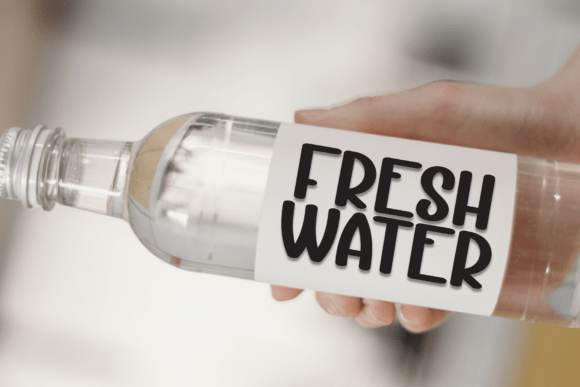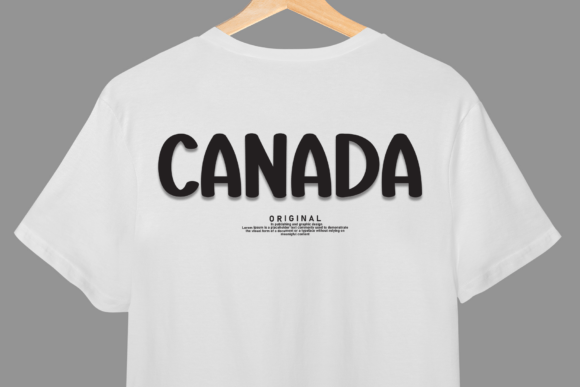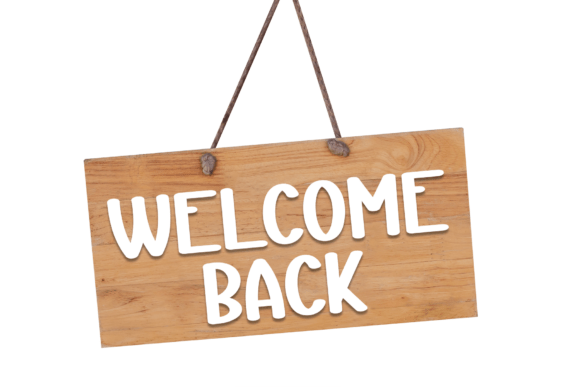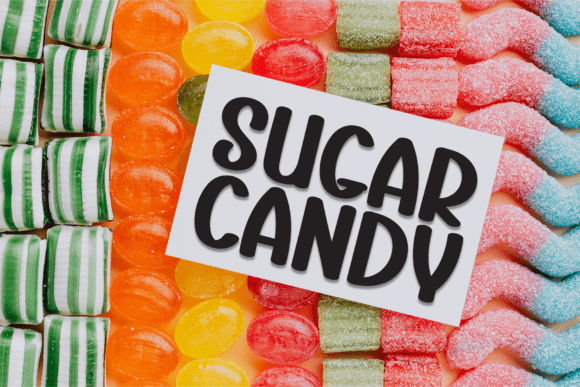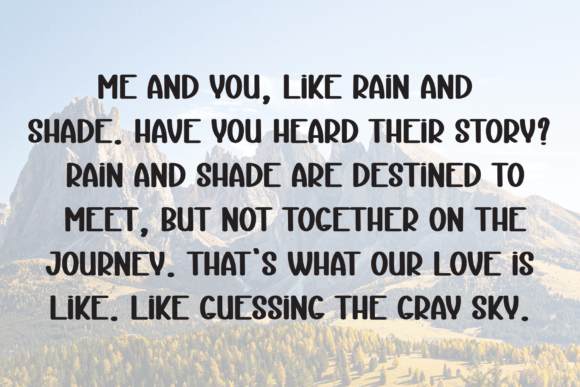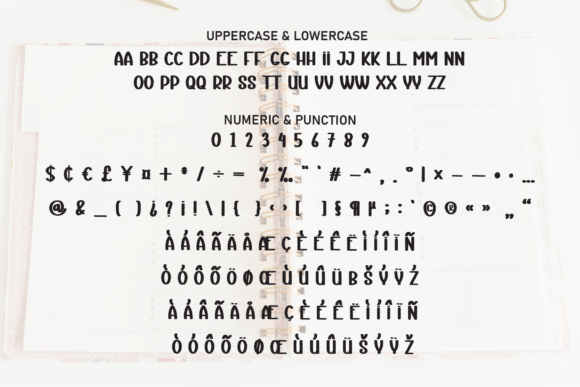
Introduction to Modern Planner Font
As designers, we’ve all had those moments of pure creative bliss – staring at a blank page, waiting for the perfect idea to strike. For me, it was the day I stumbled upon the Modern Planner Font. Its whimsical charm and playful personality immediately caught my eye, and I knew I had to learn more. This delightful handwritten display font is the perfect addition to any design, adding a touch of joy and whimsy that’s sure to delight.
Whether you’re working on a creative project, crafting wedding invitations, or simply looking for a design resource that’s a little out of the ordinary, the Modern Planner Font is a high-quality choice that’s sure to impress. With its transparent background and free download option, it’s a valuable resource for designers of all levels. In this article, we’ll dive deeper into the world of the Modern Planner Font and explore why it’s a must-have for any design enthusiast.
Key Features of Modern Planner Font
- High-quality, modern design perfect for creative projects and planners, offering a clean and minimalist aesthetic.
- Comes with a transparent background, allowing for seamless integration with various design elements and backgrounds.
- Features a large character set, including uppercase and lowercase letters, numbers, and punctuation marks, making it ideal for a variety of applications.
- Designed with a high-resolution (300 DPI) for crisp and clear display, suitable for both digital and print use.
- Includes a range of language support, making it a versatile design resource for global projects and communications.
Honest Review: Modern Planner Font
I recently had the chance to try out the Modern Planner Font, and I must say it’s been a game-changer for my creative projects. This high-quality font is perfect for anyone looking to give their designs a modern twist.
- ✨ Elegant and sleek design: The Modern Planner Font has a clean and minimalist aesthetic that’s perfect for creating a professional look.
- ✨ Transparent background: This font comes with a transparent background, which makes it easy to layer over images and create unique designs.
- ⚠️ Limited font styles: While the Modern Planner Font has a clean design, it’s a relatively simple font with limited styles and variations.
- ⚠️ May not be suitable for all projects: While this font is great for modern and professional designs, it may not be the best choice for more playful or whimsical projects.
Overall, I’m really impressed with the Modern Planner Font. It’s a high-quality design resource that’s perfect for anyone looking to add a touch of modernity to their designs. While it may have some limitations, it’s definitely worth checking out for free.
The Modern Planner Font is a high-quality, versatile design resource that can elevate your creative projects. It’s available for free download and features a transparent background, making it easy to use in various design platforms.